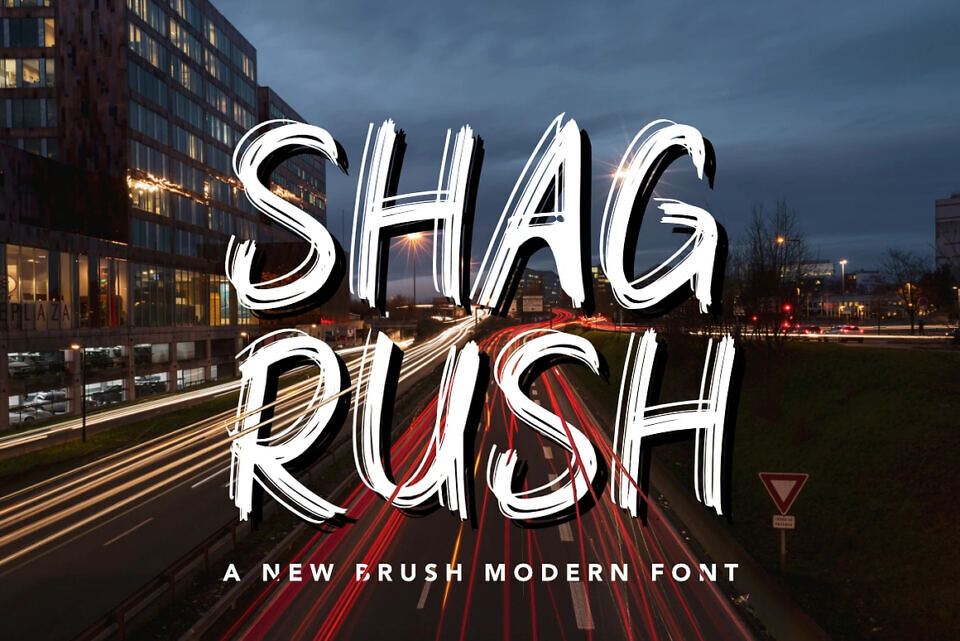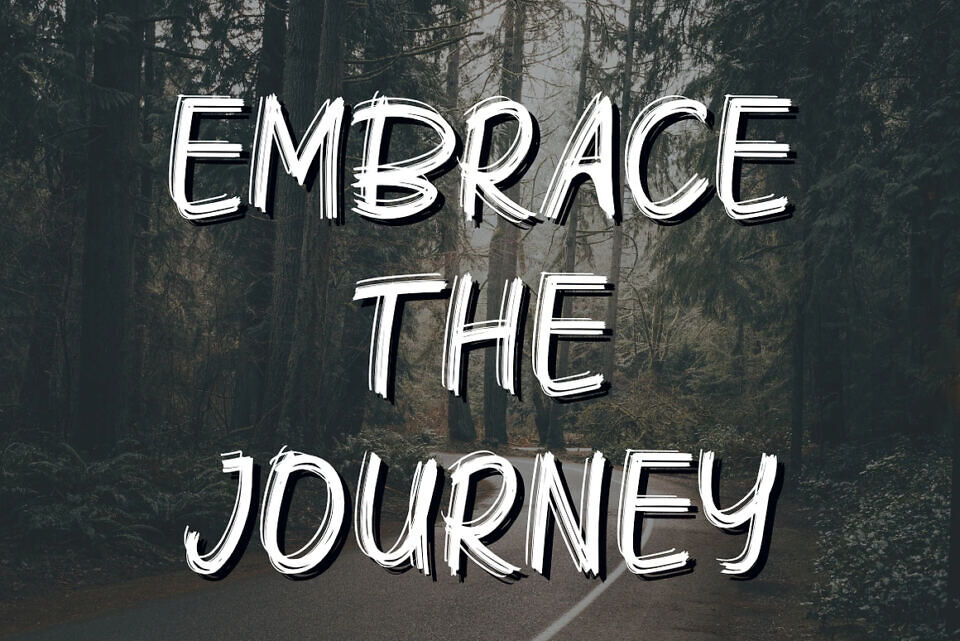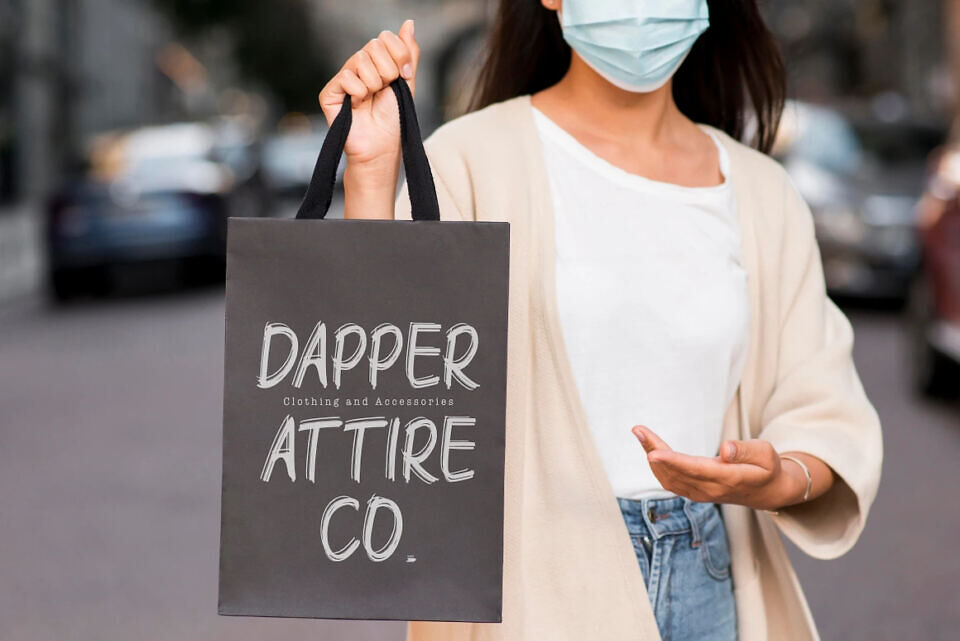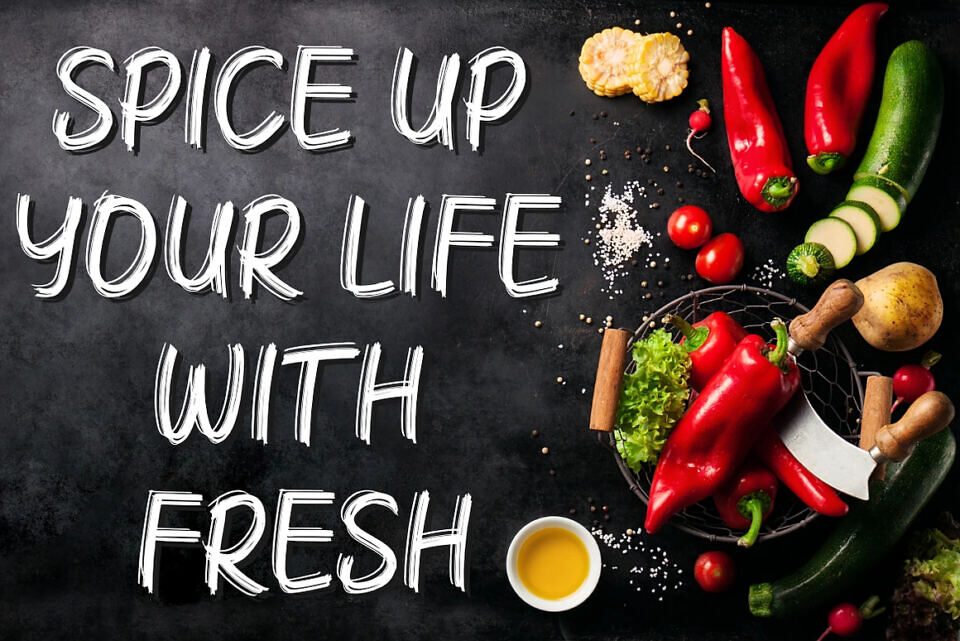
Shagrush is a fun and trendy brush display font that adds flair to any design. With its dynamic strokes and playful curves, it captures attention and exudes energy.
Perfect for posters, social media graphics, and branding, Shagrush infuses projects with a vibrant and contemporary vibe, making them stand out effortlessly.